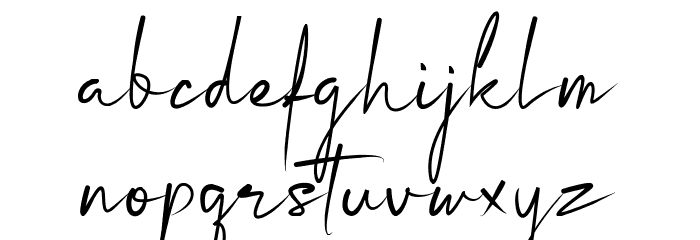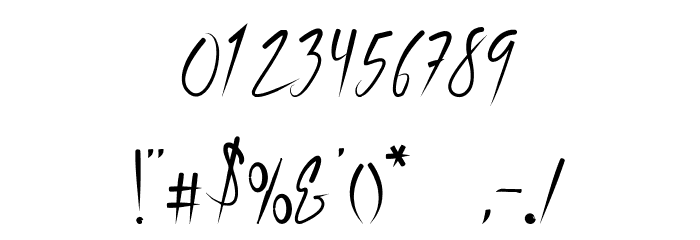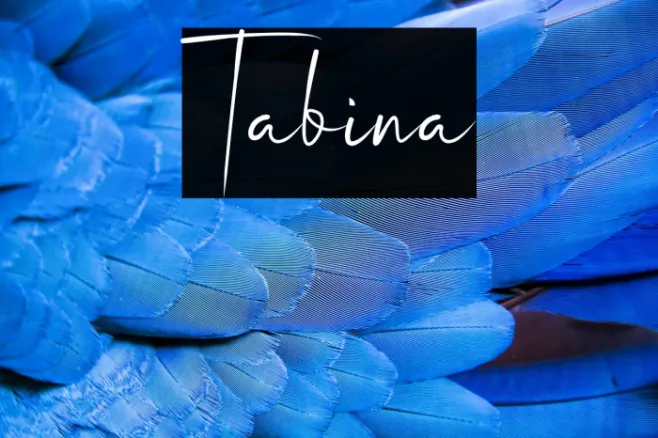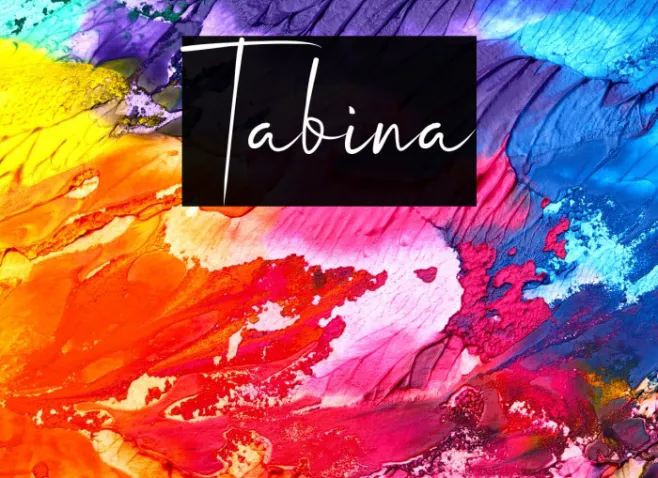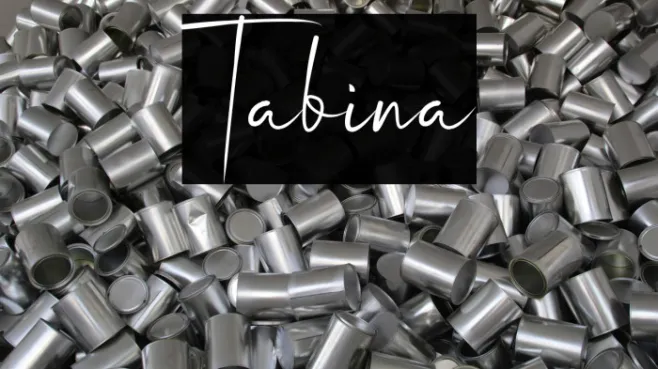
Tabina Font
This font exhibits a lively and dynamic handwritten style, characterized by its flowing and cursive letterforms. The uppercase letters are tall and slender, with a slight slant that adds a sense of motion and elegance. The lowercase letters maintain a consistent style, with elongated ascenders and descenders that enhance the font's graceful appearance. The numerals are distinct and maintain the same fluidity as the letters, ensuring readability. Special characters are creatively integrated, matching the overall aesthetic. This font's unique personality makes it suitable for projects that require a personal touch or artistic flair.
A lively, cursive handwritten font with elegant, flowing letterforms.
- Proposed Projects: Ideal for wedding invitations, personal branding, artistic posters, and greeting cards.
- Use Case: Headlines, Logos, Invitations